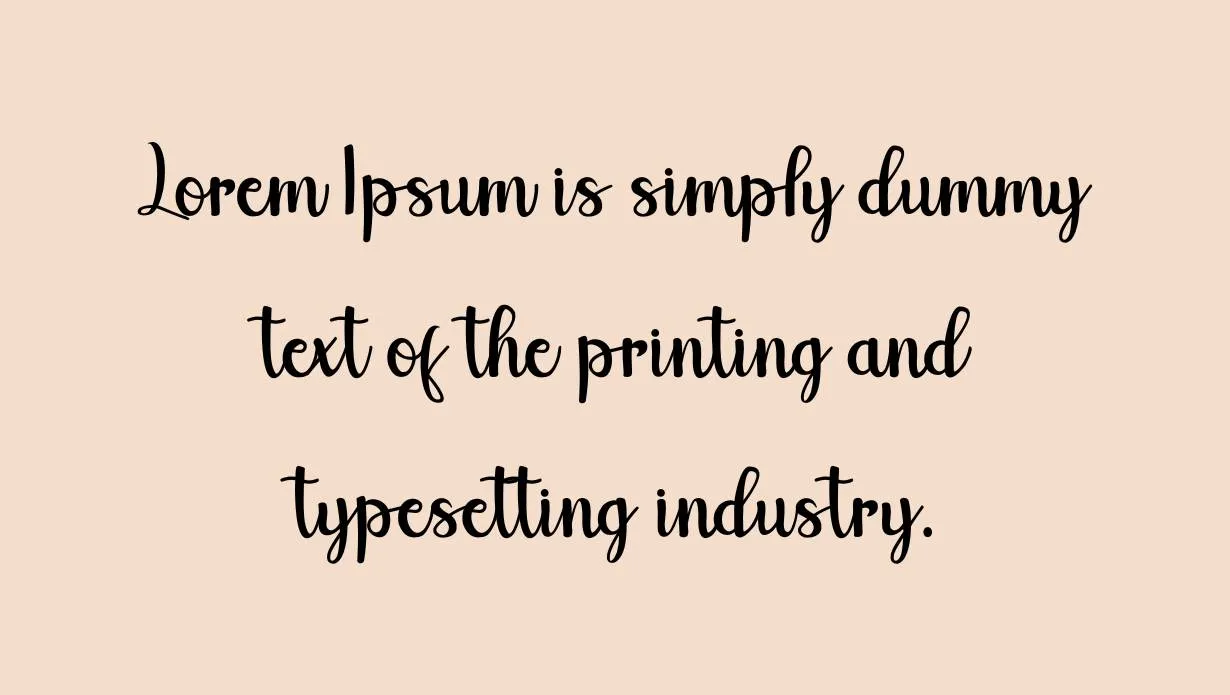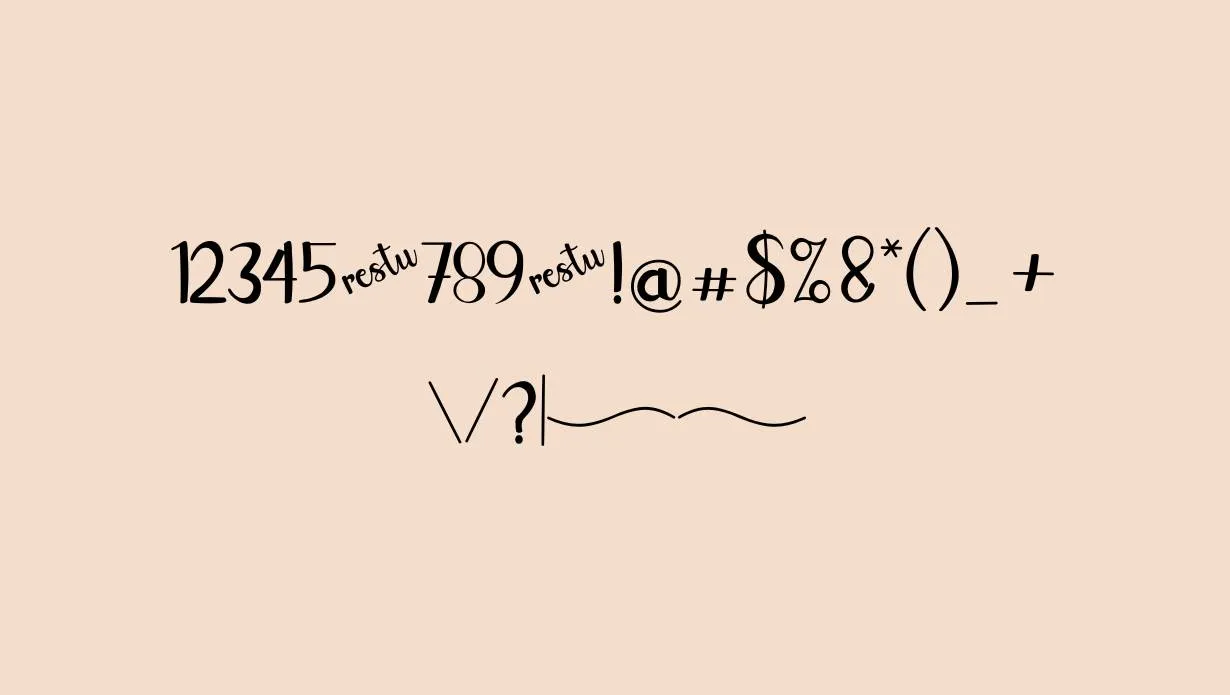
Restu Font is part of the script font family designed by Pidco Art, featuring a unique blend of elegance and authentic calligraphy.
This typeface contains cute characters in uppercase, lowercase, numbers, punctuations, and some special characters.